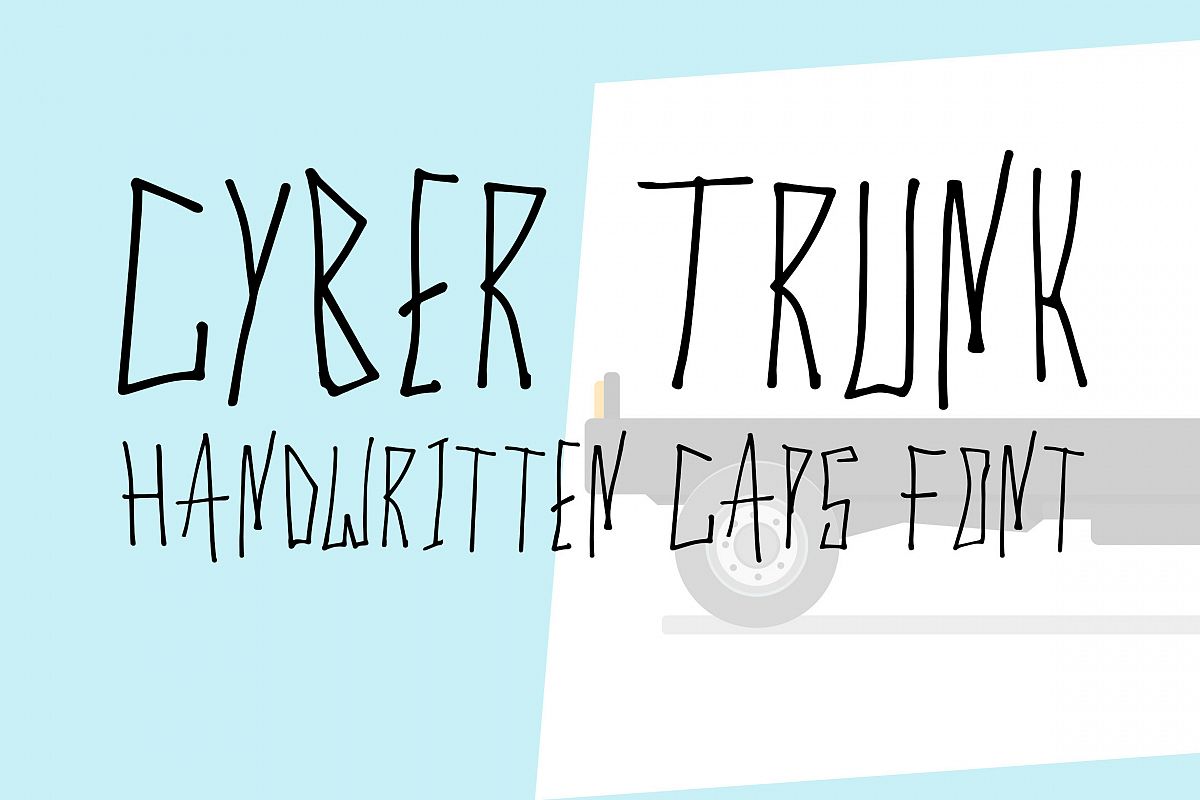
Cyber Trunk - Handwritten Caps Font
Introducing the Cyber Trunk - Fun Handwritten Caps Font, Cyber Trunk perfect for advertisements, kids projects, banners, videos projects, video games and more...